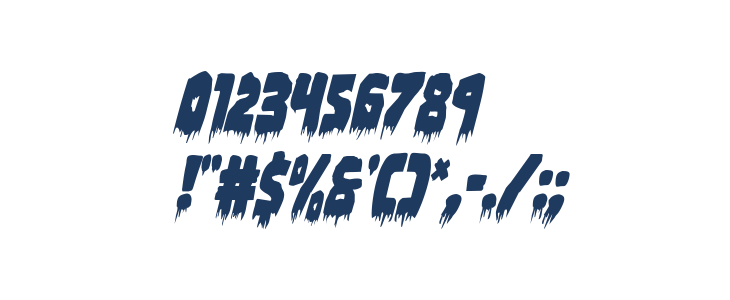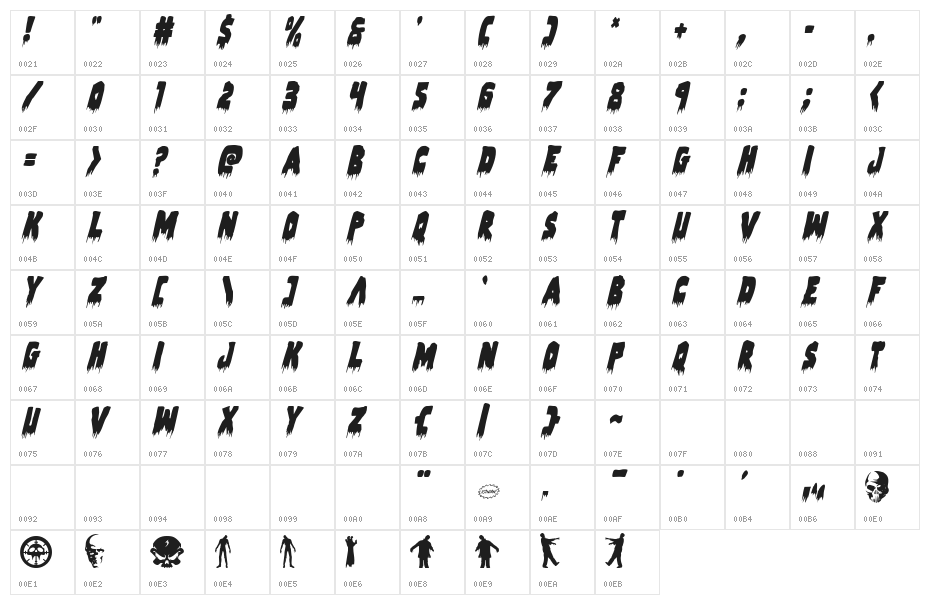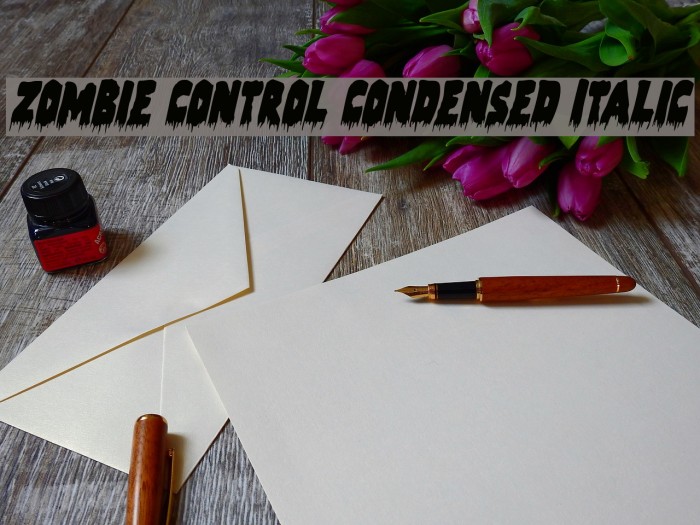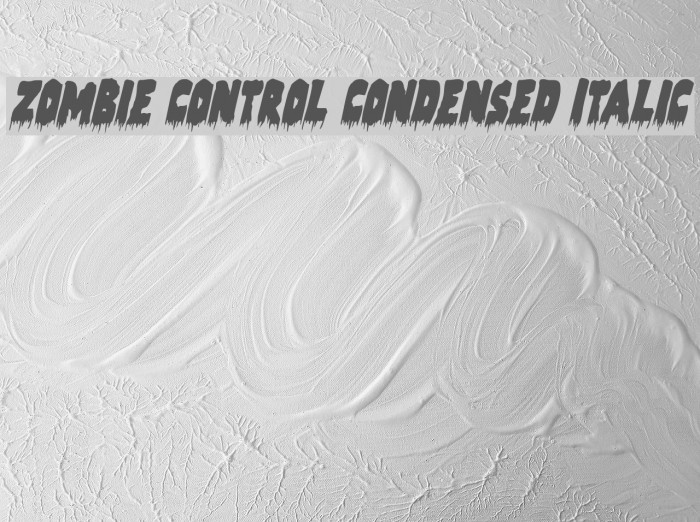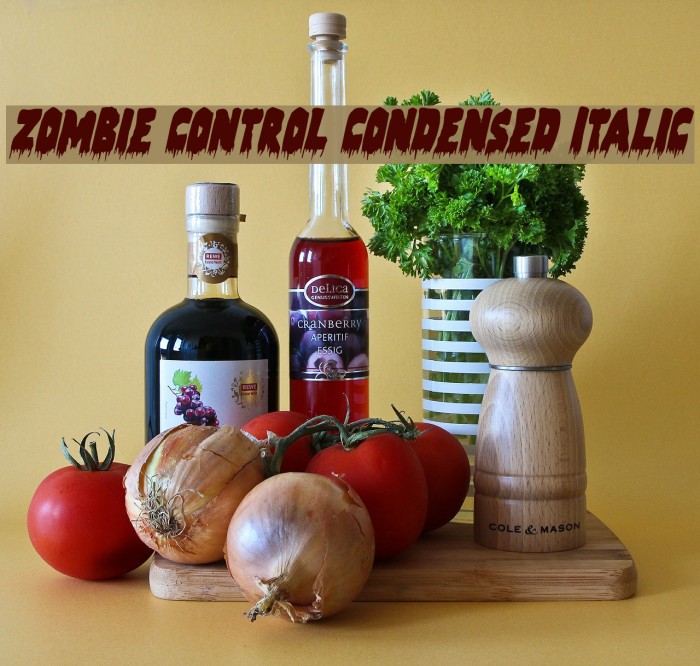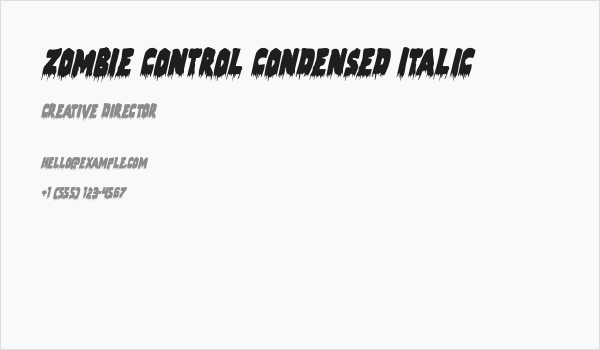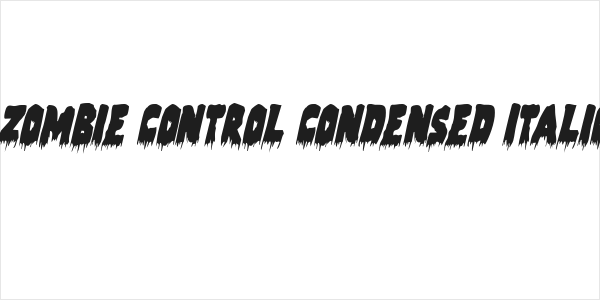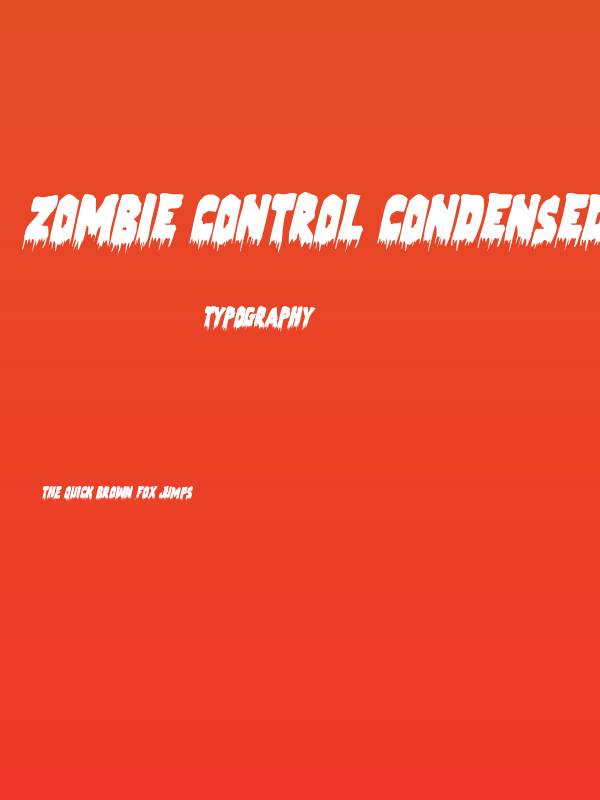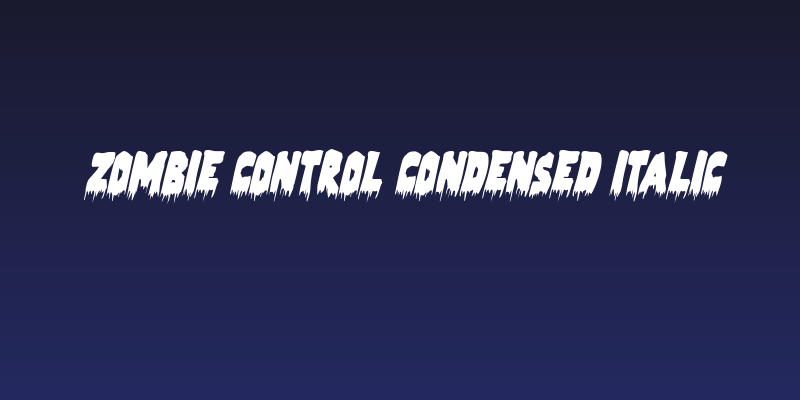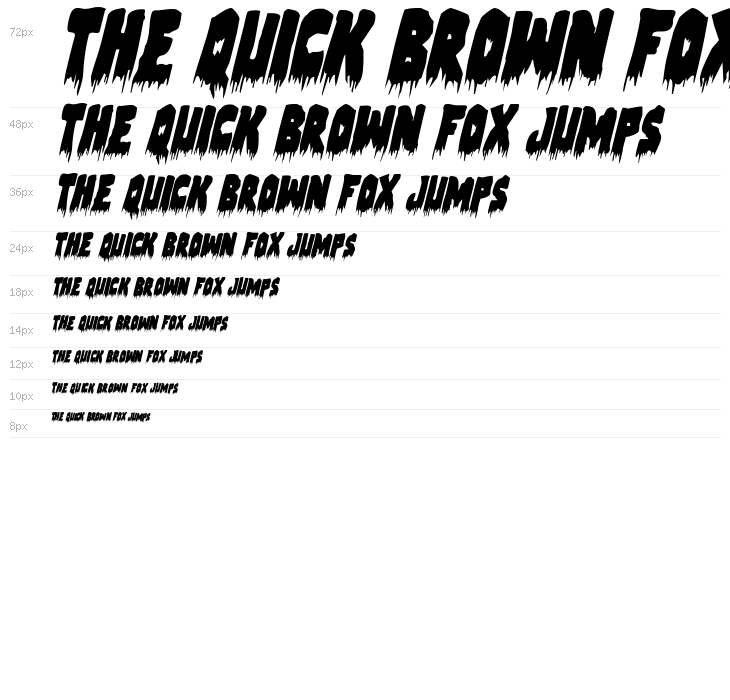
Zombie Control Condensed Italic Font
Zombie Control Condensed Italic Description
This font exudes a spooky and eerie vibe, perfect for Halloween-themed projects or anything that requires a touch of horror. The letters are bold and jagged, with a dripping effect that mimics the appearance of melting or decaying material. The condensed nature of the font allows for tight spacing, making it suitable for impactful headlines or titles. The italic slant adds a dynamic and unsettling feel, enhancing the overall creepy aesthetic. This font is highly decorative and not intended for body text, but it excels in creating a dramatic and eye-catching display.
| Proposed Projects | Ideal for Halloween posters, horror movie titles, haunted house flyers, and spooky event invitations. |